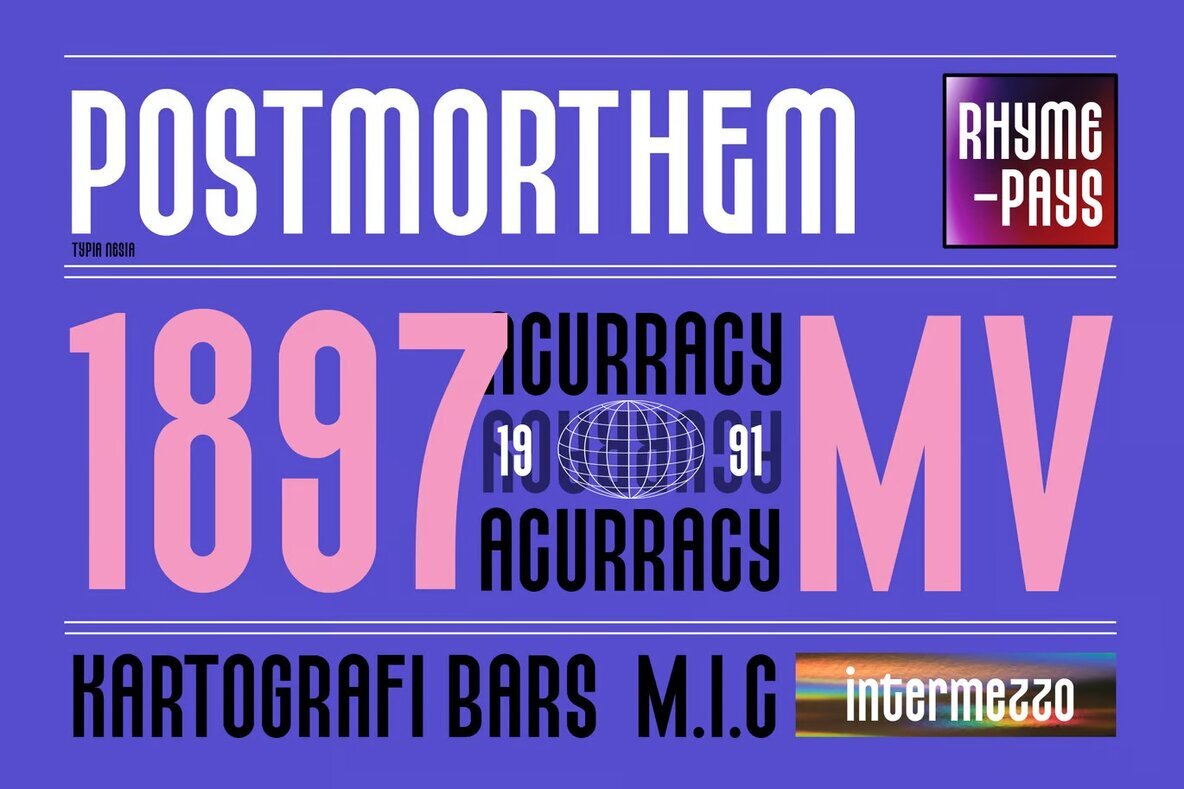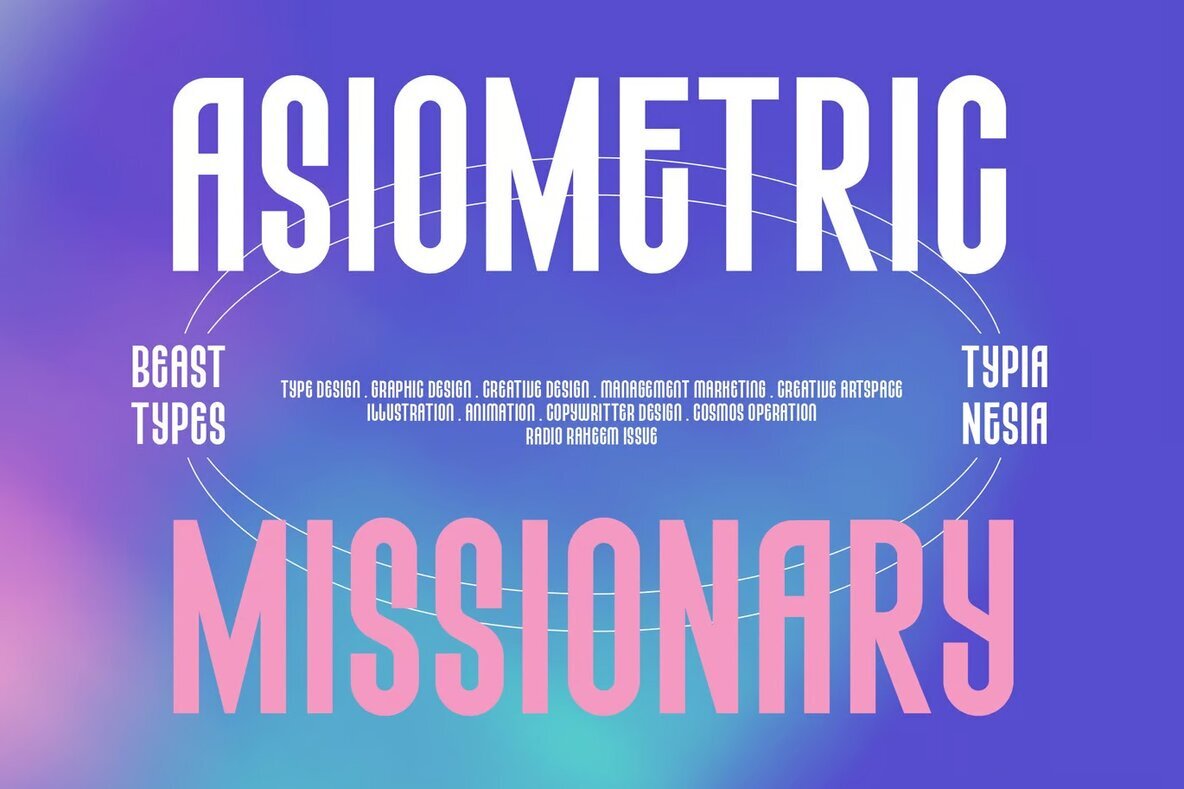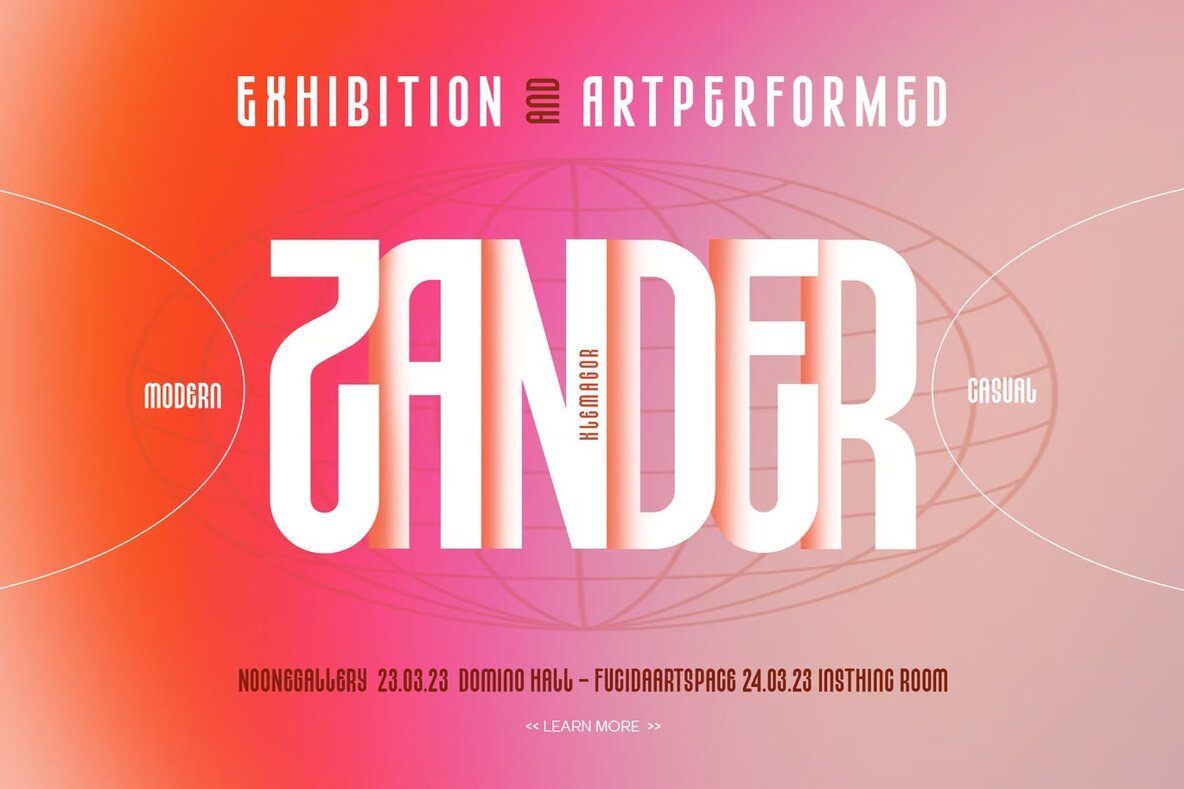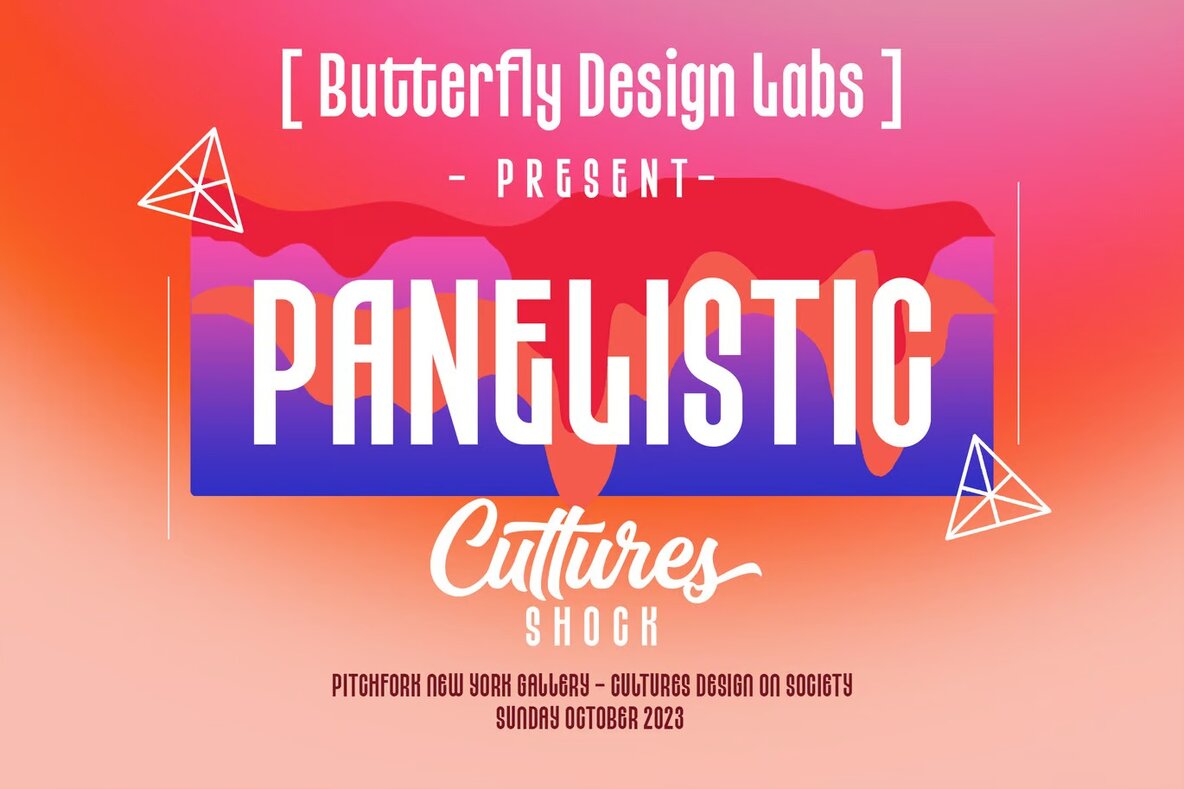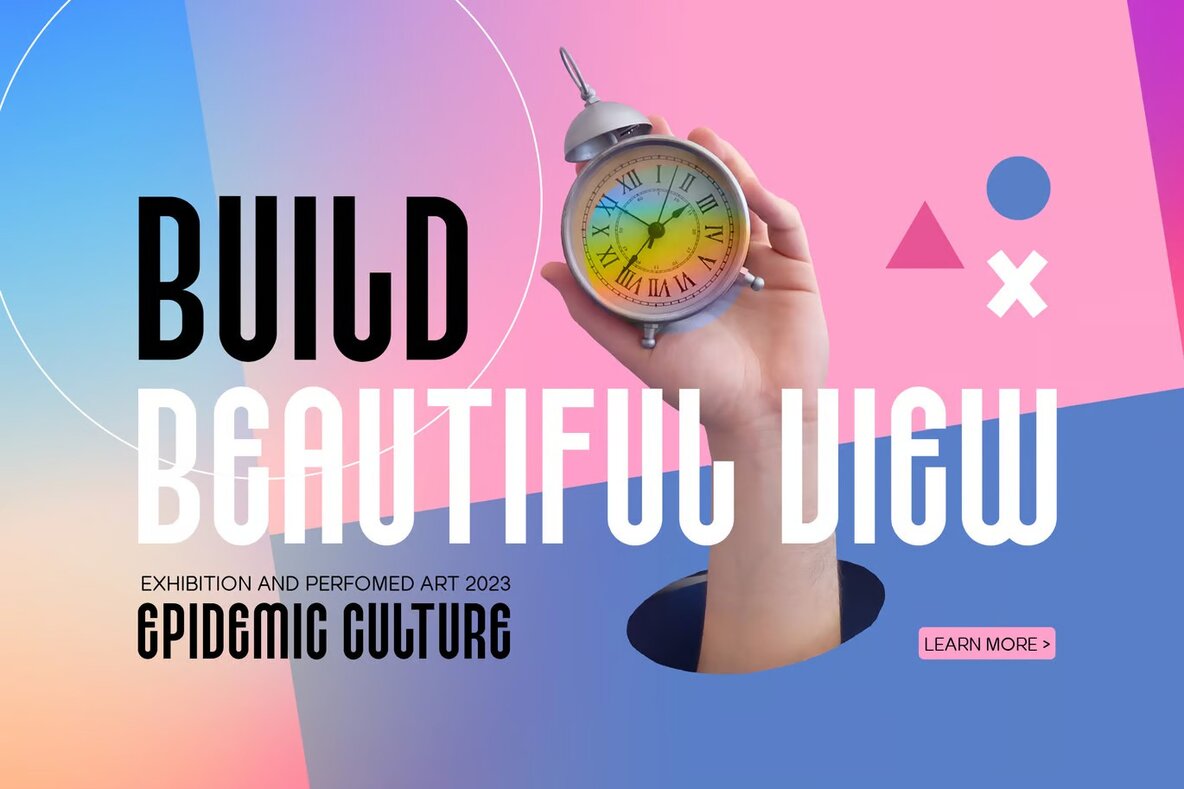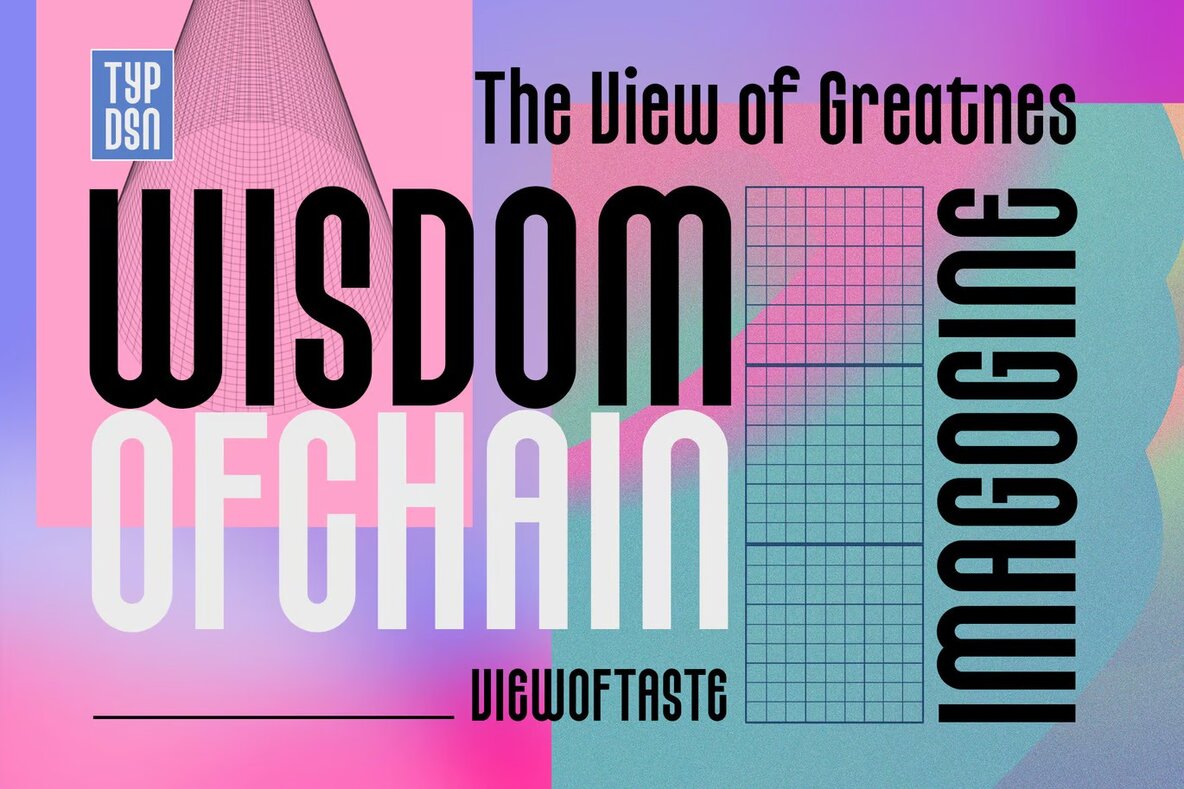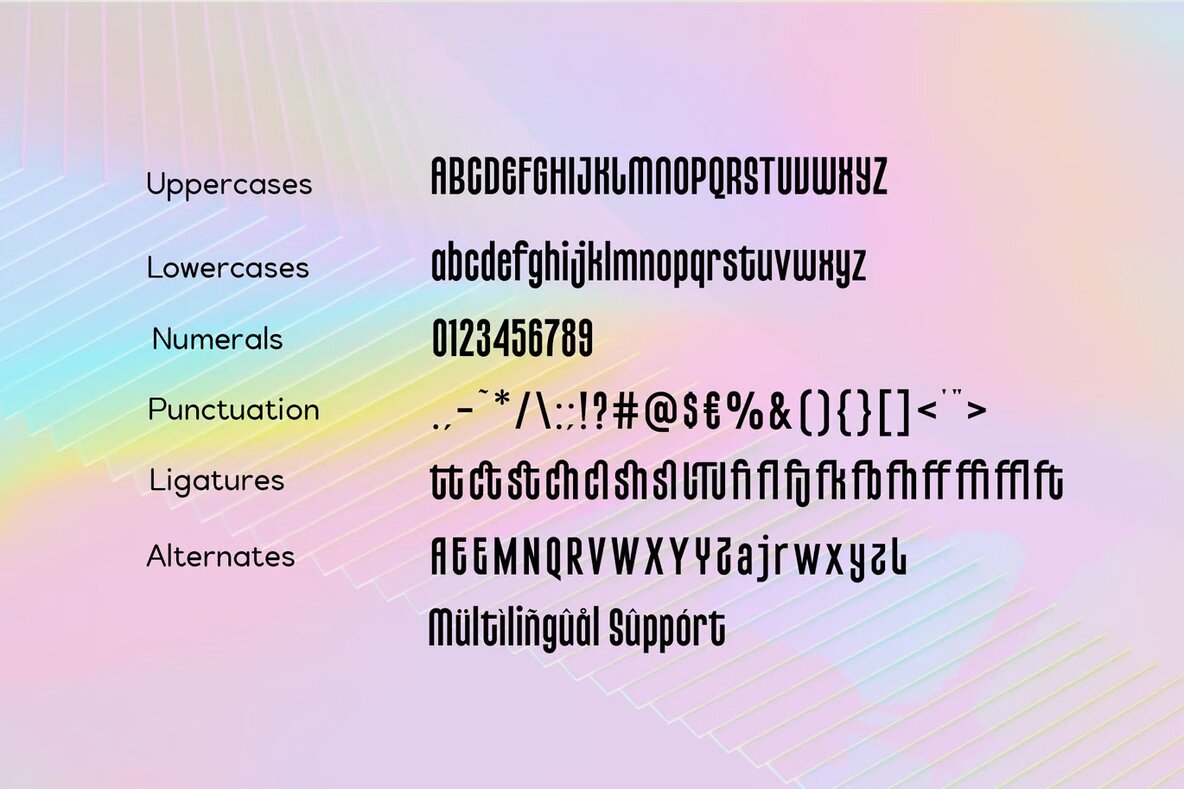
Cultures Font
Cultures Regular
Cultures Condensed Sans is a bold and dynamic display font crafted for sports and active brands. Its condensed design makes it perfect for creating eye-catching titles and headlines, ensuring your message stands out. This font is ideal for a variety of design projects, from logos and posters to advertisements and more.
Suited for promoting sports events, fitness brands, and athletic products, Cultures Condensed Sans offers both functionality and versatility. Its modern and energetic style adds a powerful touch to any project, helping to effectively communicate a strong and dynamic brand image. Enhance your design projects with Cultures Condensed Sans and make a striking visual impact.